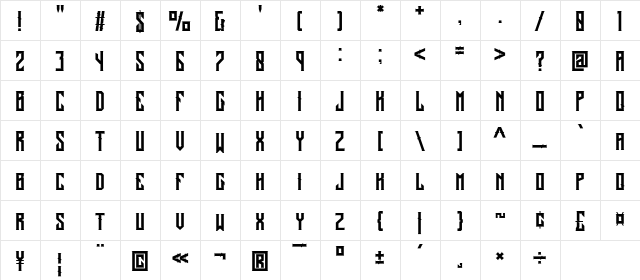
Complete Alardo Demo Regular glyph index. Displaying only characters natively supported by Alardo Demo Regular font.
Alardo Demo is a composed and adaptable typeface that performs quietly and consistently across a wide range of design contexts.